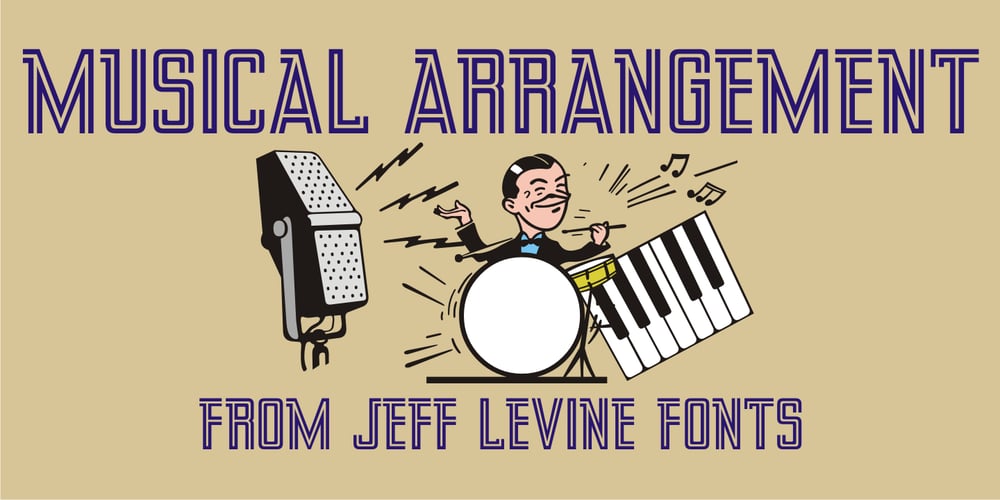
Musical Arrangement JNL Font Family was designed by Jeff Levine and published by Jeff Levine. Musical Arrangement JNL contains 1 styles and family package options. The hand-lettered title on a piece of sheet music for 1938’s “Don’t Be That Way” (as recorded by Benny Goodman) featured squared letters with rounded corners, slight variants in line thickness and interesting “overhangs”. Additionally, some letters closed off on one end while others were opened, giving the impression of a slight “maze” effect. This unique song title was enough of an inspiration to be turned into Musical Arrangement JNL.